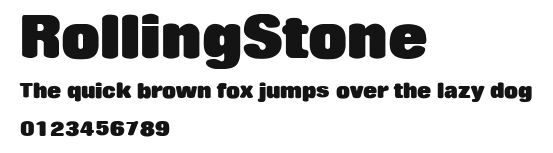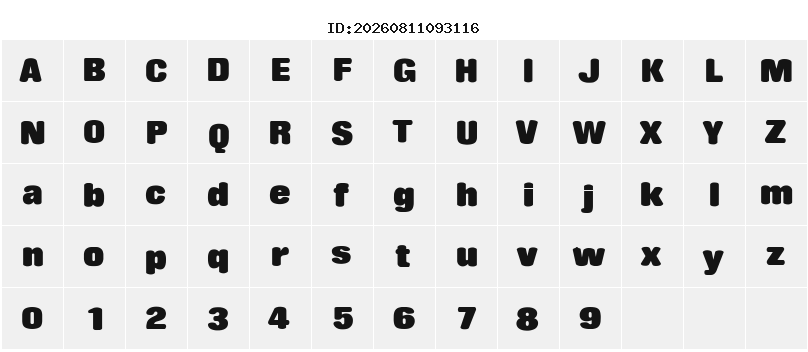
About RollingStone.ttf
RollingStone.ttf is a modern, elegant sans-serif font designed for ultimate readability and visual harmony. Perfect for branding, headlines, web design, and print materials.